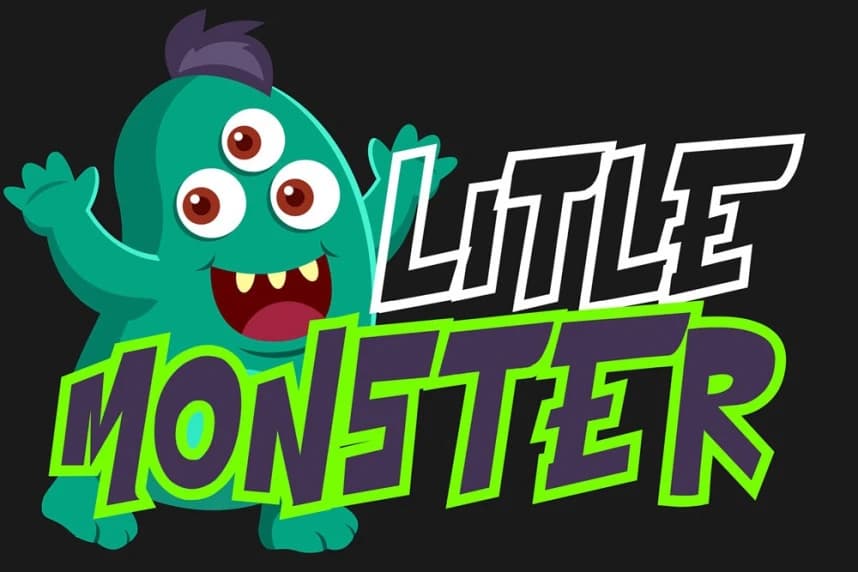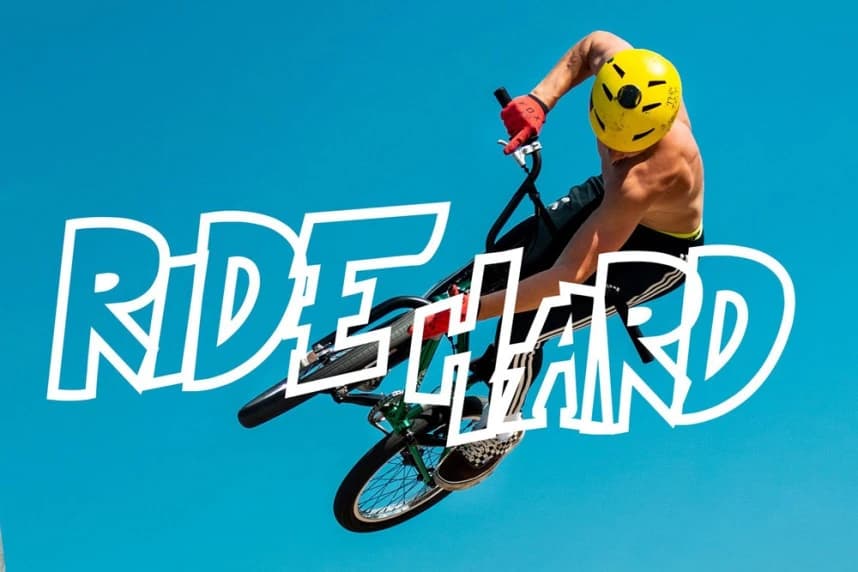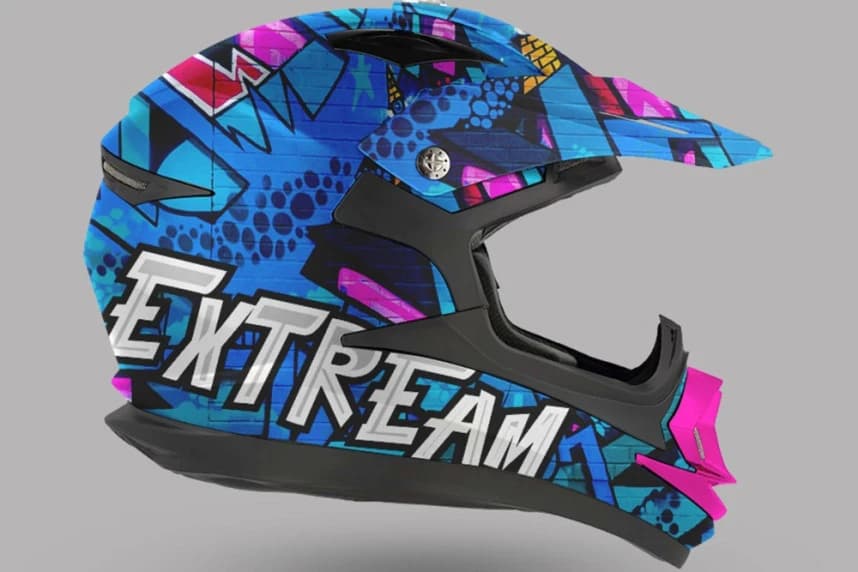
Street Stronger Font
Street Stronger Font is a powerful and versatile graffiti font designed to bring depth, dimension, and bold urban energy into your designs. Built as a complete layered system, this layered graffiti font allows you to create striking typographic compositions with ease.